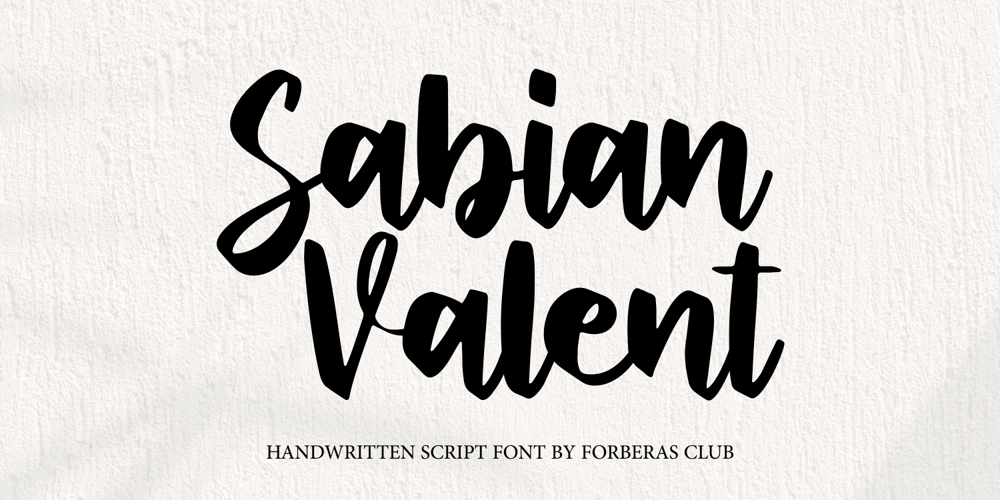
Sabian Valent Font Family was designed by ANGGI HERMAWAN and published by Forberas Club. Sabian Valent contains 1 styles and family package options. Sabian Valent is unique handwritten font. Very nice if you use it for poster, gig, logotype, cover, book, tees, and many more.